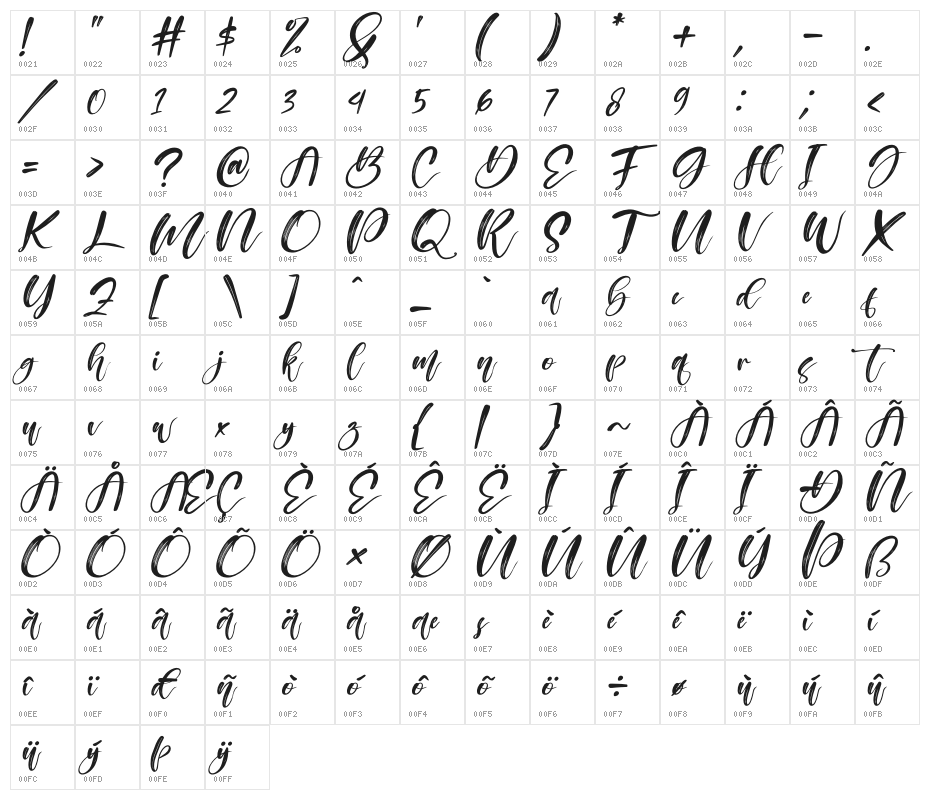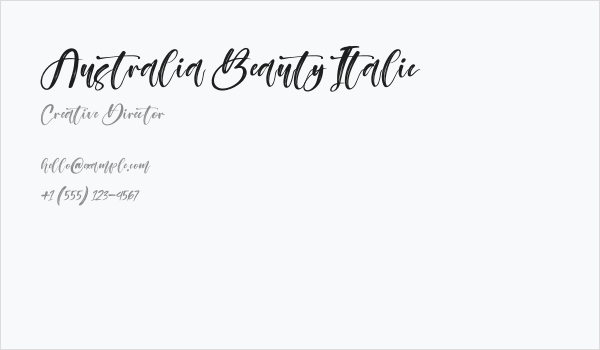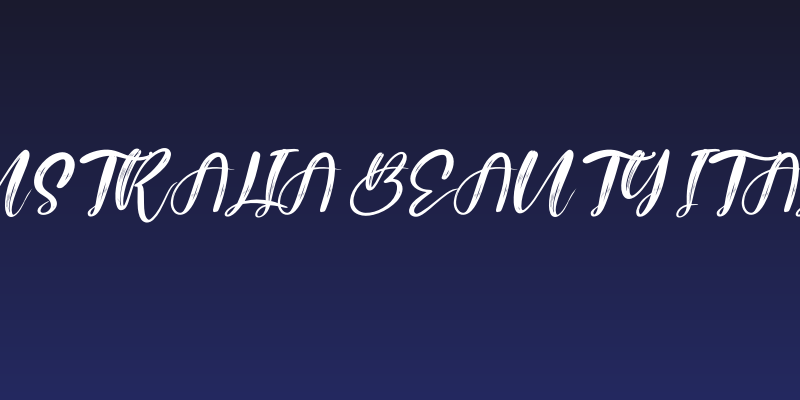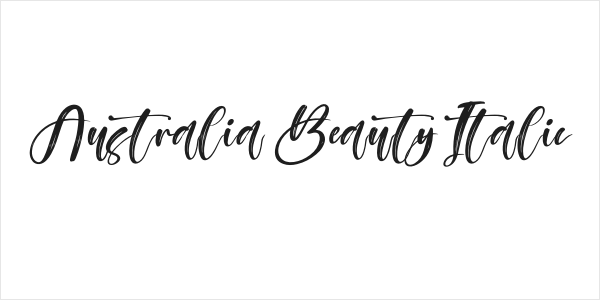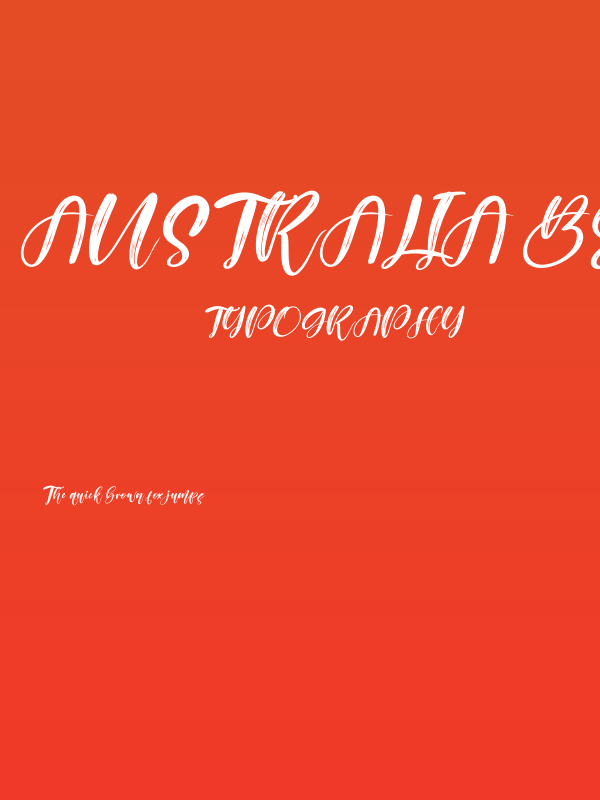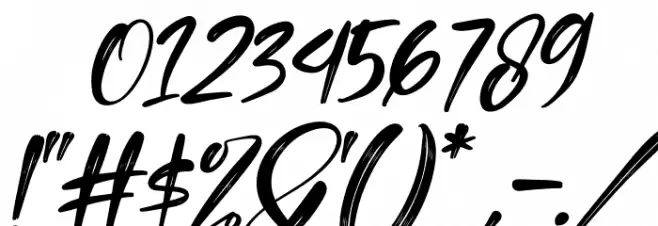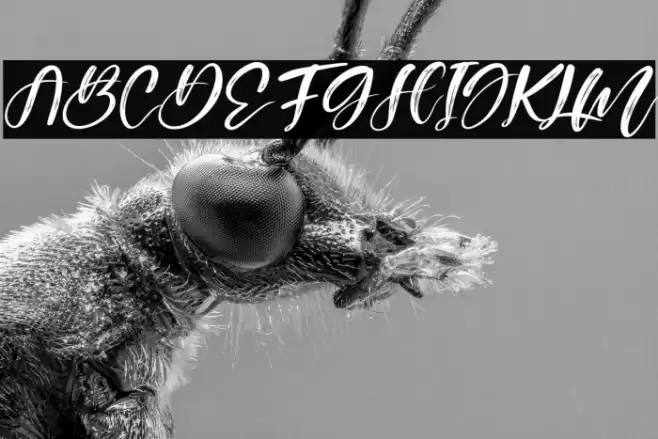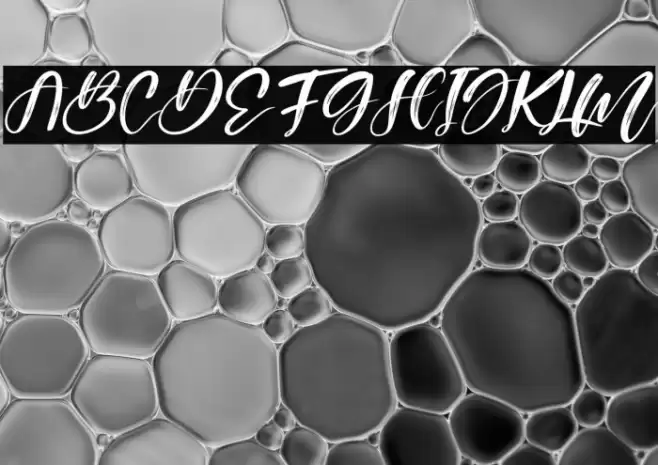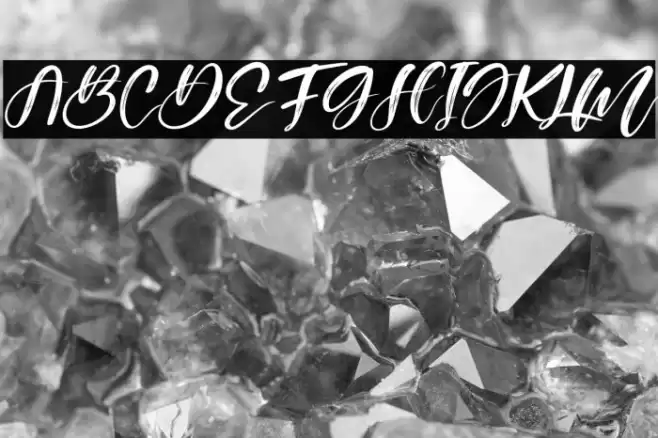
Australia Beauty Italic Font
Australia Beauty Italic Description
This font features an elegant, flowing script style with a distinctly modern flair. The characters are connected with smooth, sweeping strokes that give it a sense of movement and grace. The uppercase letters are bold and prominent, while the lowercase letters maintain a consistent flow, enhancing readability. The numerals are stylishly integrated, maintaining the overall aesthetic. Special characters are designed with the same attention to detail, making them blend seamlessly with the rest of the font. The italic slant adds a dynamic and sophisticated touch, perfect for projects that require a personal or artistic feel.
| Use Case | Logos, Invitations, Branding |
| Proposed Projects | Ideal for wedding invitations, branding, greeting cards, and elegant logo designs. |